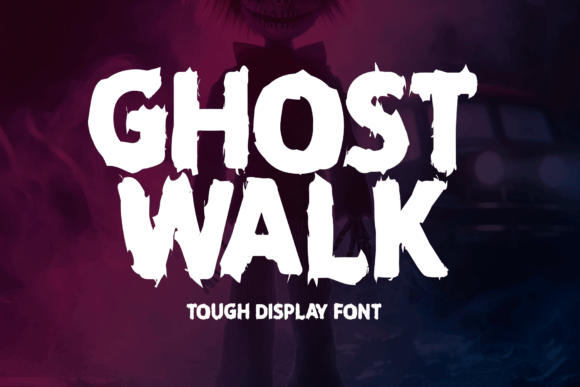
Ghost Walk Font: A Striking and Eerie Display Font
The Ghost Walk Font is a unique and captivating display font that is designed to make a lasting impression. Its powerful letterforms and eerie personality make it perfect for a wide range of creative applications, from branding and logos to clothing, site headers, flyers, posters, music covers, and more.
What is Ghost Walk Font?
Ghost Walk Font is a striking and eerie display font that is meant to add a strong presence to any layout. Its bold and edgy design makes it perfect for projects that require a sense of mystery and intrigue. Whether you’re working on Halloween projects or edgy urban graphics, this font is sure to make an impact.
Key Features of Ghost Walk Font
- Unique Letterforms: The Ghost Walk Font features unique and powerful letterforms that are designed to make a lasting impression.
- Eerie Personality: The font has an eerie personality that adds a sense of mystery and intrigue to any layout.
- Versatile: The font is perfect for a wide range of creative applications, from branding and logos to clothing, site headers, flyers, posters, music covers, and more.
Uses of Ghost Walk Font
The Ghost Walk Font is perfect for a wide range of creative applications, including:
Branding and Logos
The Ghost Walk Font is perfect for creating unique and memorable logos and branding materials. Its bold and edgy design makes it perfect for companies that want to stand out from the crowd.
Clothing and Apparel
The font is perfect for creating eye-catching clothing and apparel, such as t-shirts, hoodies, and hats.
Site Headers and Flyers
The Ghost Walk Font is perfect for creating striking site headers and flyers that grab attention.
Posters and Music Covers
The font is perfect for creating bold and eye-catching posters and music covers that showcase your creativity.
Benefits of Using Ghost Walk Font
The Ghost Walk Font offers a range of benefits, including:
Unique and Memorable
The font is unique and memorable, making it perfect for creating lasting impressions.
Versatile
The font is versatile and can be used for a wide range of creative applications.
High-Quality
The font is high-quality and features bold and edgy letterforms.
The Ghost Walk Font is a striking and eerie display font that is perfect for making an impression. Its unique letterforms and eerie personality make it perfect for a wide range of creative applications. Whether you’re working on Halloween projects or edgy urban graphics, this font is sure to make an impact.